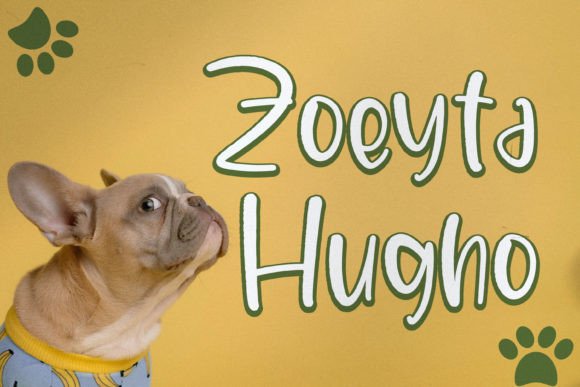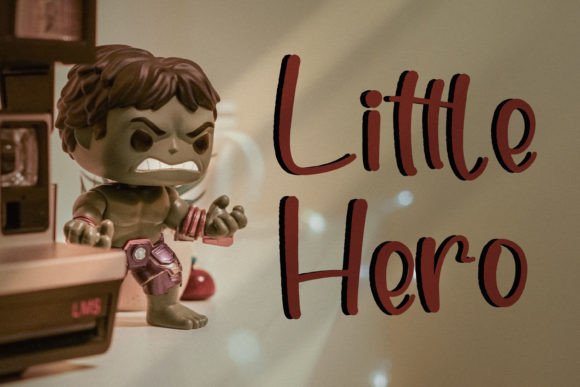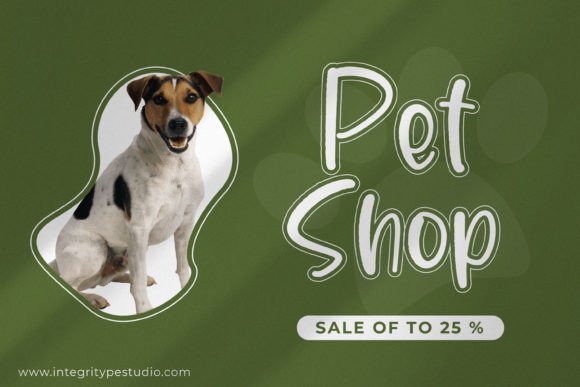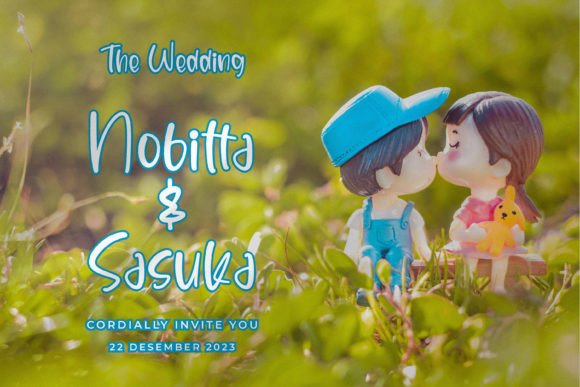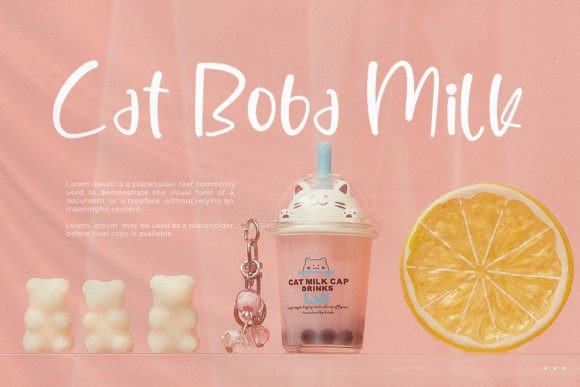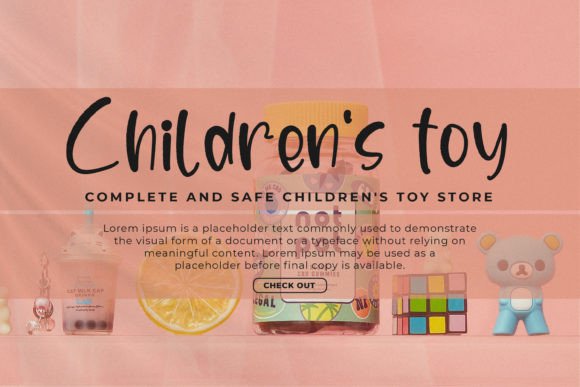
Introduction to Sanello Cutte Font Font
Fonts play a crucial role in design, and the Sanello Cutte Font font is a typeface that brings both character and versatility to any project. Whether you’re working on a branding project, a website, or a print design, the Sanello Cutte Font font offers a unique style that can elevate your work.
Sanello Cutte is a premium handwritten font, perfect for any project like logos, branding projects, homewares designs, product packaging, mugs, quotes, posters, shopping bags, t-shirts, covers books, business cards, invitation cards, greeting cards, labels, photography, watermarks, special events and all your other luxury projects that require a premium taste.
Sanello Cutte is a premium handwritten font, perfect for any project like logos, branding projects, homewares designs, product packaging, mugs, quotes, posters, shopping bags, t-shirts, covers books,
Key Features of Sanello Cutte Font Font
Why Choose Sanello Cutte Font Font?
The Sanello Cutte Font font is more than just a typeface – it’s a design tool that helps you communicate your message with style and clarity. Its unique character set and versatile design make it suitable for a wide range of applications, from elegant invitations to bold headlines.
With its carefully crafted letterforms and balanced proportions, the Sanello Cutte Font font ensures readability and visual appeal across all mediums.
What makes Sanello Cutte Font font special?
The Sanello Cutte Font font stands out with its unique design, exceptional readability, and versatility across various design applications.